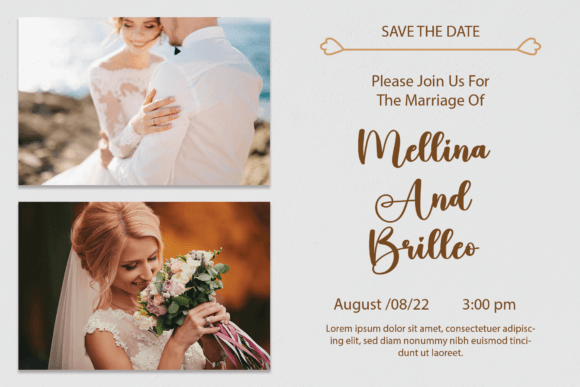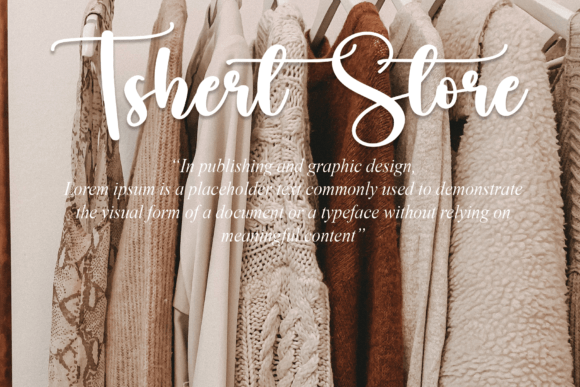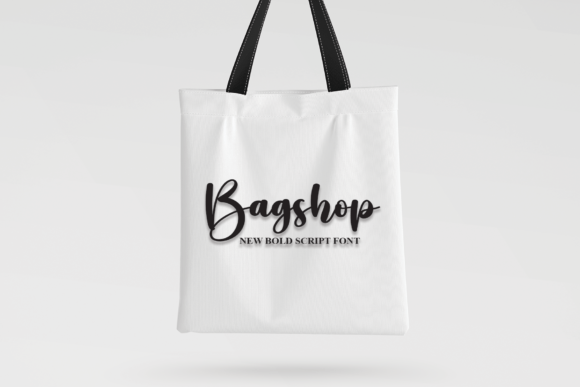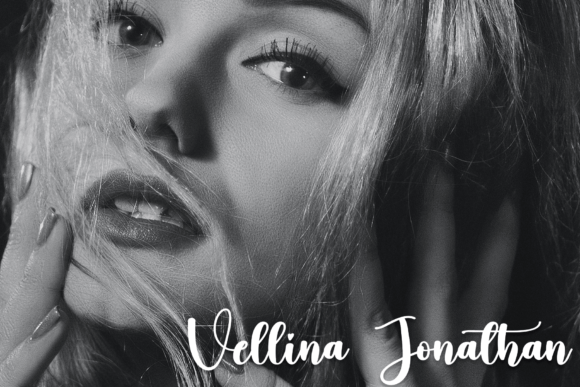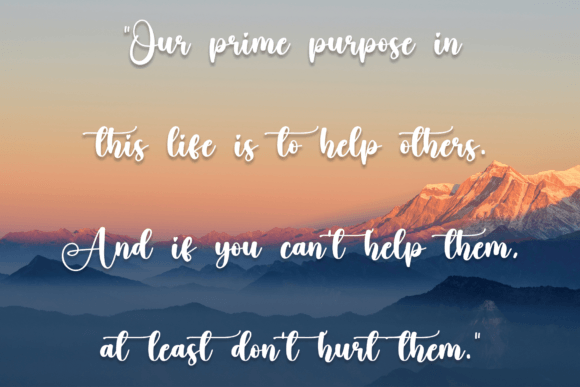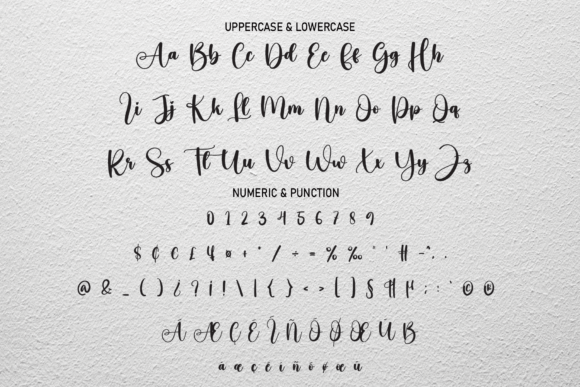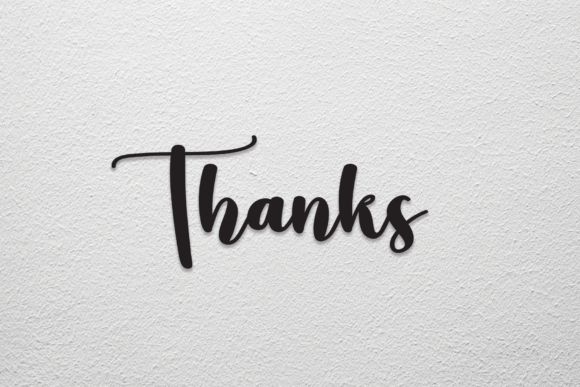
School Font
About School Font
School font embodies a unique blend of cleanliness, relaxation, and friendliness, making it an ideal choice for a wide spectrum of design projects. This handwritten typeface, with its neat and straightforward style, has the capacity to seamlessly integrate into diverse contexts, establishing itself as a reliable and versatile option for a myriad of occasions.
The font’s pristine appearance brings a sense of cleanliness to any design it graces. Each character is meticulously crafted, contributing to an overall aesthetic that is sharp, polished, and visually appealing. Whether used in digital or print media, School font maintains its clarity and readability, ensuring that your message comes across with precision and elegance.
One of the standout features of School font is its relaxed vibe. The strokes of each letter flow smoothly, creating an atmosphere of ease and informality. This characteristic makes the font particularly well-suited for designs that seek to communicate in a friendly and approachable manner. From casual invitations to lighthearted promotional materials, School font effortlessly conveys a sense of comfort and ease.
The handwritten quality of School font adds a personal touch to any project. In a digital landscape often dominated by sterile and uniform typefaces, School stands out by infusing a human element into the design. This touch of personality makes it an excellent choice for projects that aim to establish a connection with the audience, fostering a sense of warmth and familiarity.
Versatility is a key strength of School font, making it adaptable to a broad range of design scenarios. Whether you’re working on a formal presentation, a creative project, or a playful invitation, this font seamlessly transitions between different themes and styles. Its ability to strike a balance between neatness and informality ensures that School font remains relevant across diverse design requirements.
In conclusion, School font is not just a typographic choice; it is a design companion that adds a layer of sophistication, friendliness, and adaptability to your creative projects. Its clean lines, relaxed demeanor, and handwritten charm collectively contribute to a font that has the potential to become a staple in your design toolkit, enhancing the visual appeal of your work across various contexts and occasions.